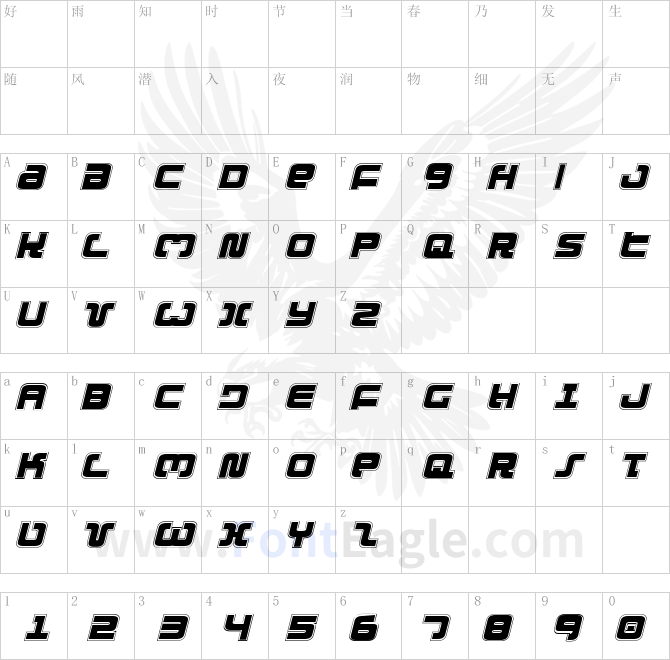
- Font name:Exedore College Italic
- Font Subfamily ID:Exedore Italic: 2008
- Font Full Name:Exedore College Italic
- Postscript:ExedoreCollegeItalic
- Font Copyright:2008 Iconian Fonts